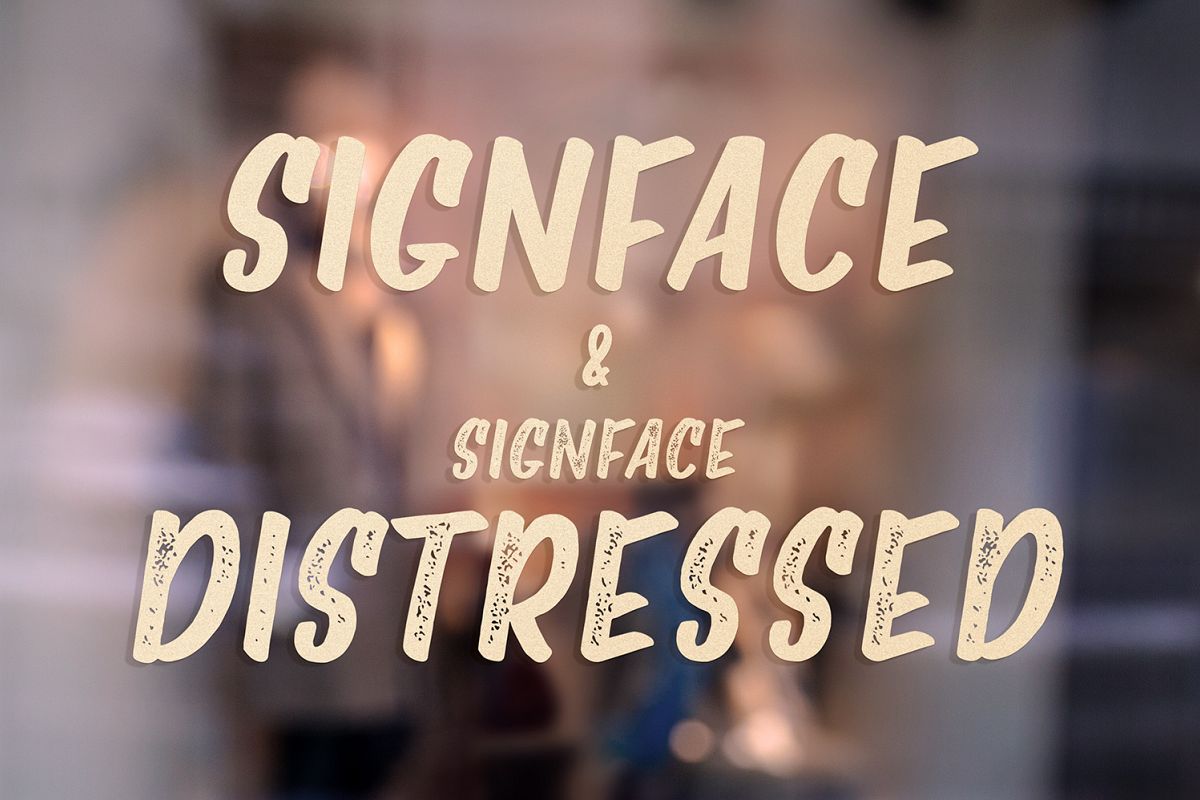
Signface & Signface Distressed
Signface-Regular
Signface-Distressed
Signface is an all-caps font inspired by the unique letterforms seen in hand painted signs. Clean yet informal, Signface works well to make a strong impression without being too serious about it.
Signface Distressed offers a little more flavor, adding to its retro charm. With its unique and strong character, Signface is sure to make an impression.